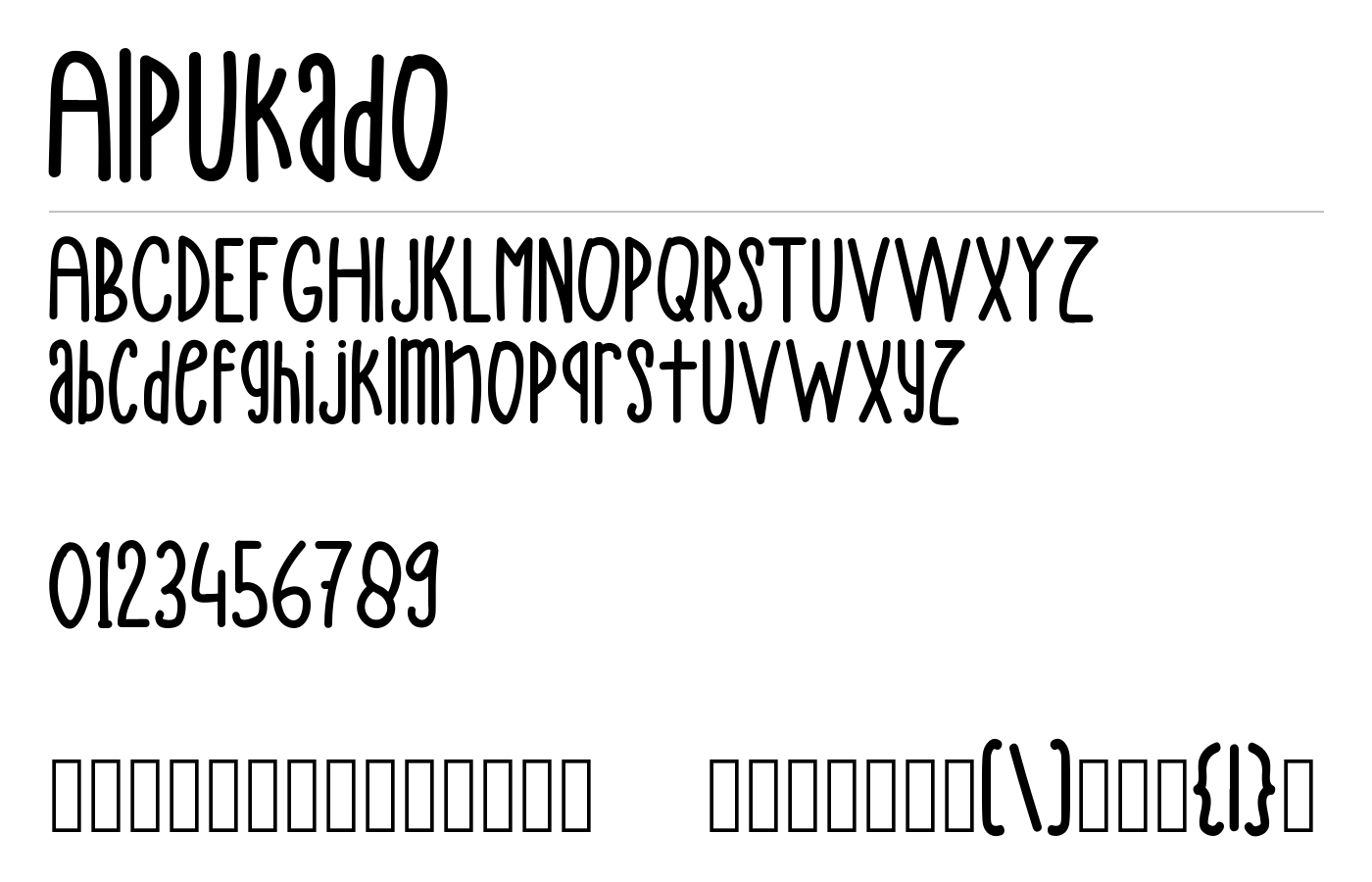
Alpukado is a playful sans serif font with a tall, narrow structure and lightly rounded edges that give it a friendly, informal feel. Its unique letterforms, such as the one-story 'a' and quirky shapes, make it ideal for eye-catching headlines, creative branding, and casual designs looking to add a touch of personality. This font works best in projects where a fun, approachable, and modern look is desired.
Alpukado Font
About Alpukado Font